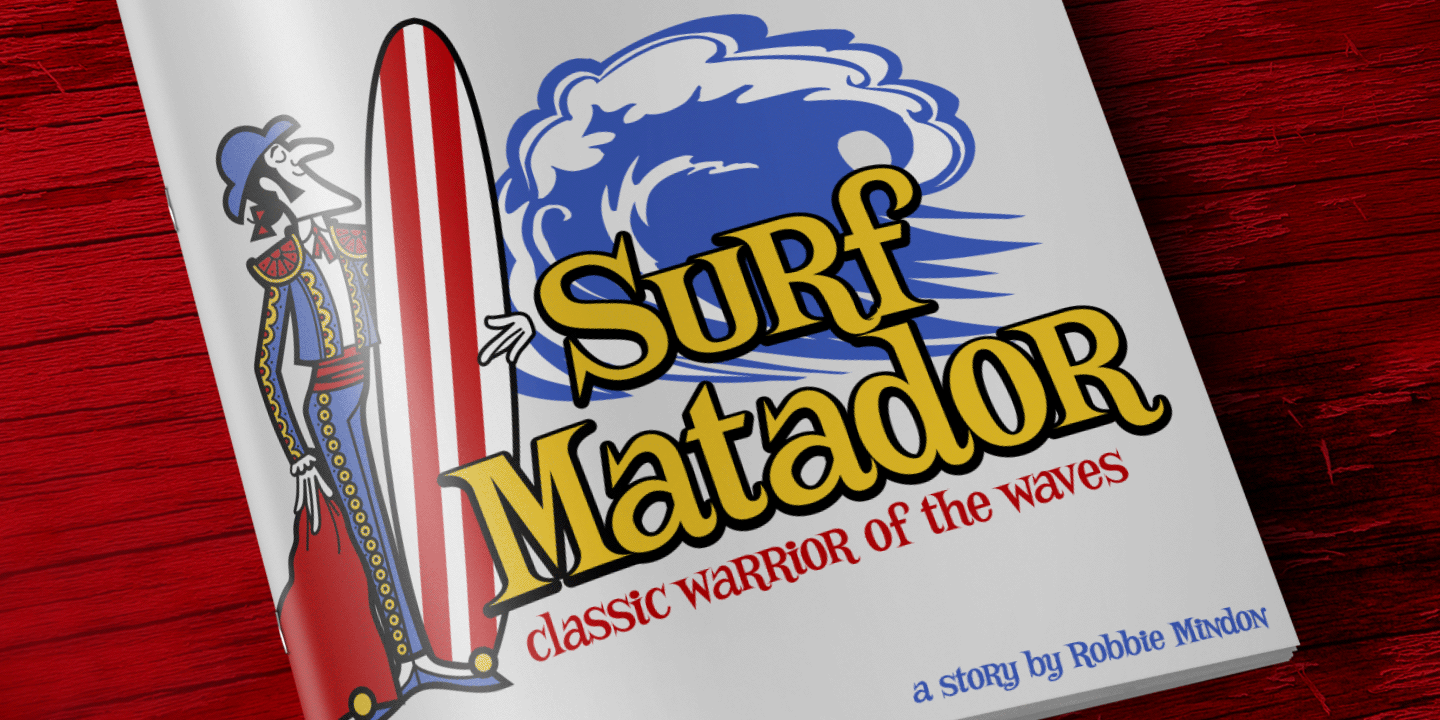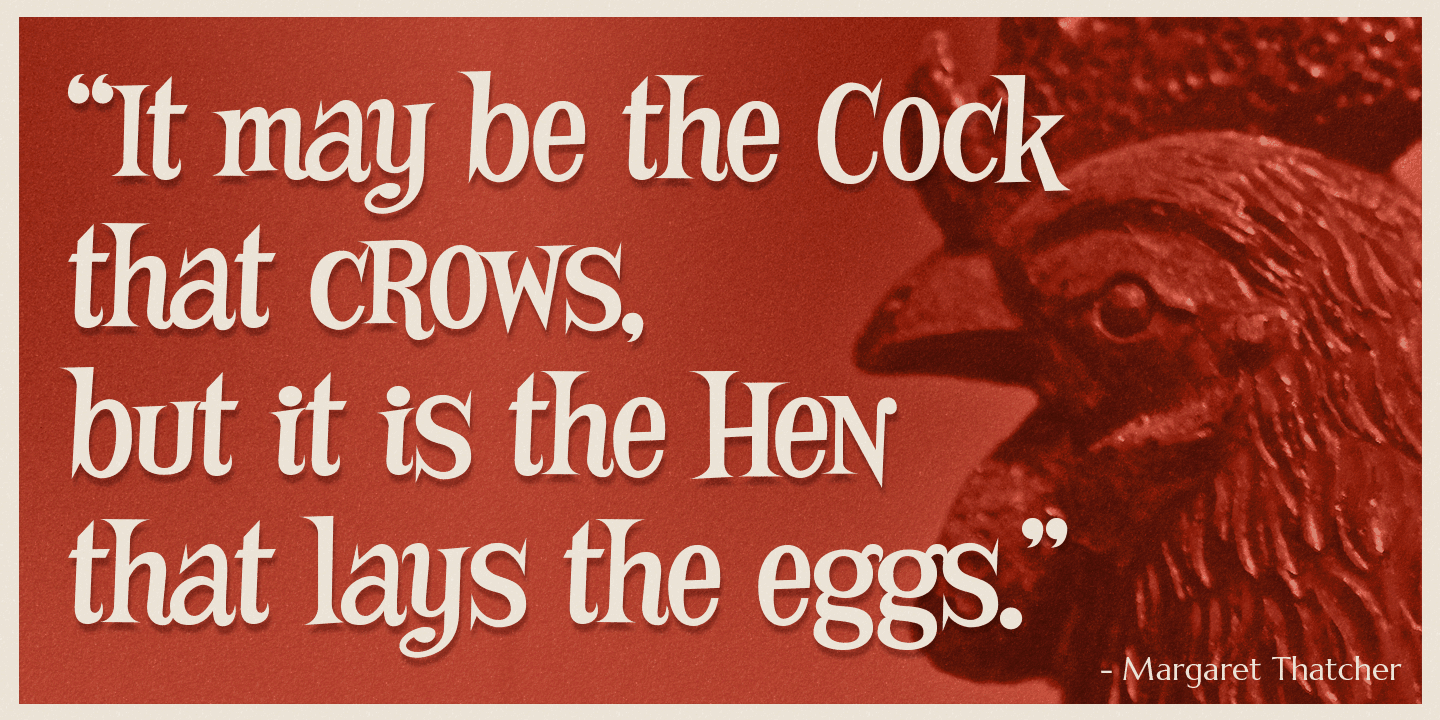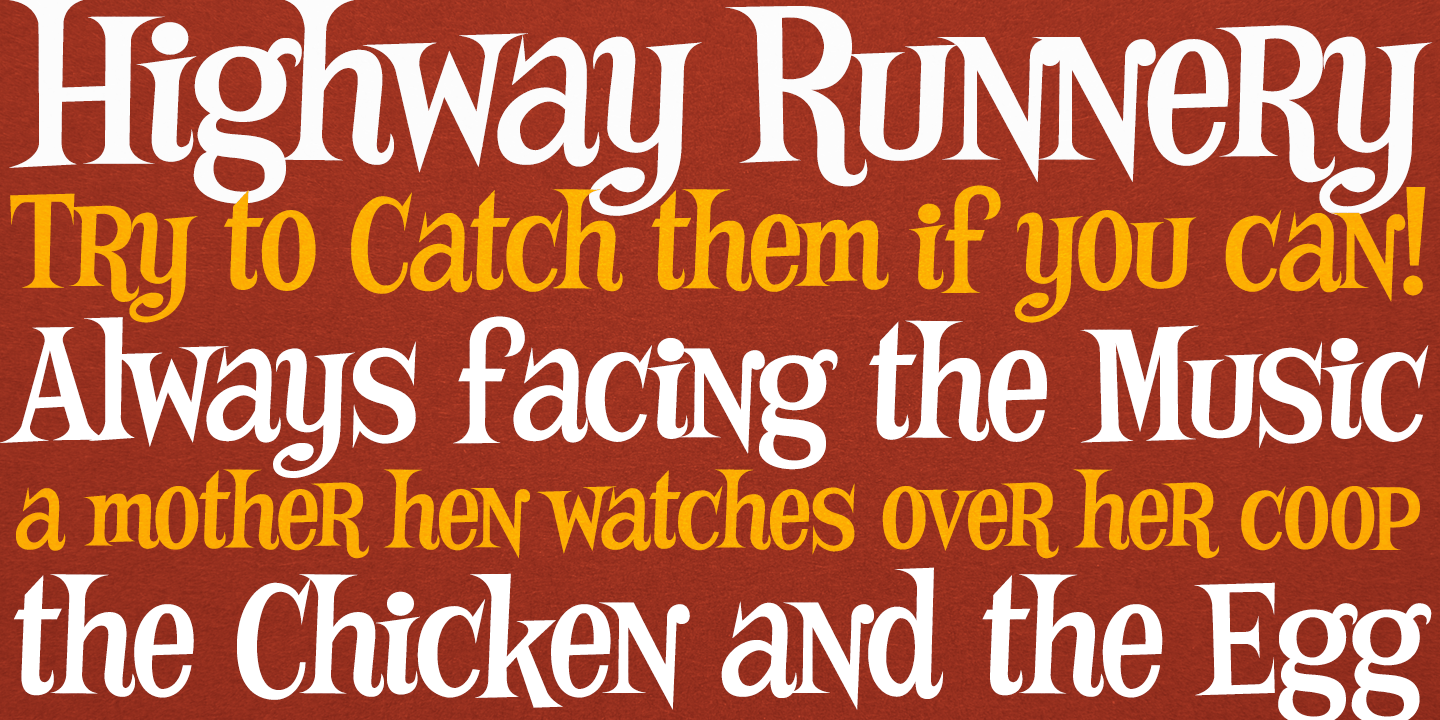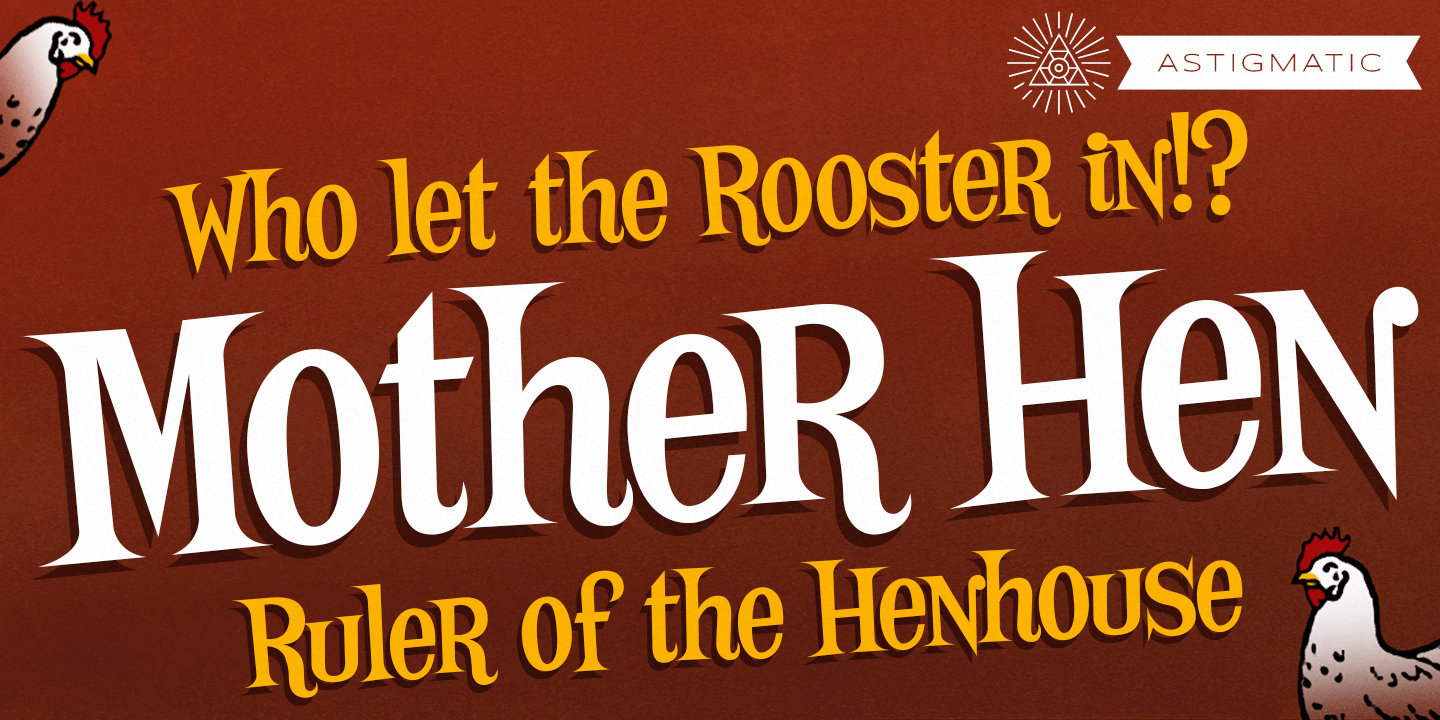
HomeFunWackyMother Hen Wacky Mother Hen FacebookXPinterestWhatsApp 1 of 4 About Mother Hen An offbeat comic latin typestyle inspired by old cartoon titling.  DOWNLOAD ON FONT BROSThis font is sold and delivered by Font Bros. Font Canyon may earn a commission if you buy through this link. People also explored Silky Daisy Font Invite Tranquility Font Mathelica Font Zebra Font Quicker Font Spunky Font Moreya Font National Nouveau Font Hat Christmas Font 541 0 TagsMother Hen Font Previous articleDragline BTNNext articleRRollie LEAVE A REPLY Cancel reply Comment: Please enter your comment! Name:* Please enter your name here Email:* You have entered an incorrect email address! Please enter your email address here Website: Save my name, email, and website in this browser for the next time I comment. Personal Use Free Thruster Personal Use Free Read more about this font Screengem Personal Use Free Read more about this font Spring Personal Use Free Read more about this font Hello Sister Personal Use Free Read more about this font BLOG How to Install and Use Fonts on Windows, macOS, and Web Projects How to Install and Use Fonts on Windows, macOS, and Web Projects Fonts are a crucial part of design and branding. Whether you’re designing a... How to Cut Any Font on Cricut: Convert a Font to SVG (Free) Top 7 Google Fonts Alternatives for Faster and Privacy-Friendly Web Design (2025) Where to Buy American Fonts Online in 2024